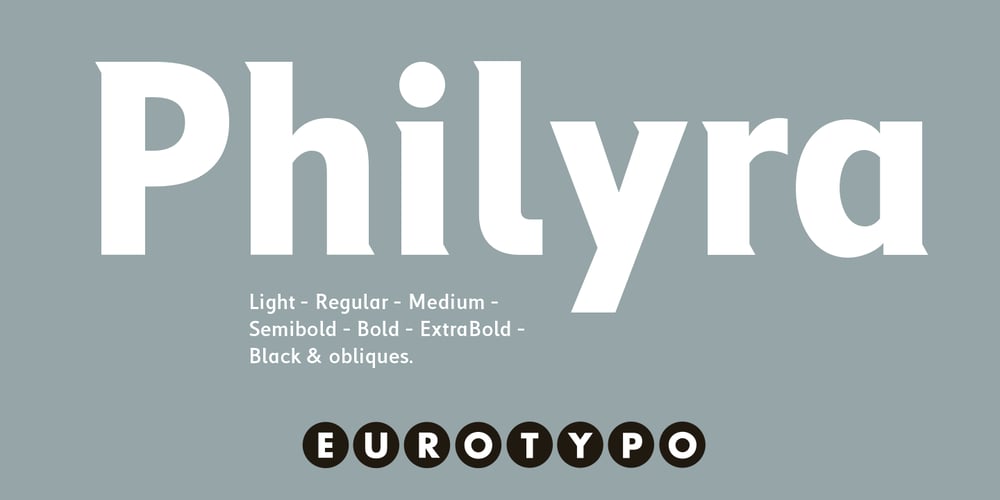
Philyra Font Family was designed by Olcar Alcaide and published by Eurotypo. Philyra contains 14 styles and family package options. Philyra is a sans-serif font family consisting of seven weights with corresponding oblique; these style aren’t traditional italics, but feature an “f” character with a vertical stroke descending below the baseline, adding dynamism and distinction to your compositions.One standout feature of this font is the subtle apex, giving it personality and stability. Its shapes are elegant with accurate kerning, ensuring excellent legibility for both body text and standout headlines. Philyra strikes the perfect balance between strength and sophistication.